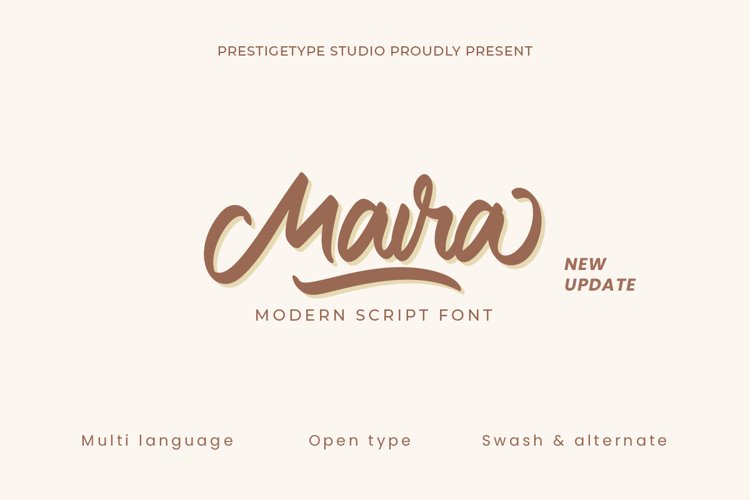
Maira
Beauty can change the perspective of the target audiences. Choose the right typeface to represent the beauty of your brand. We are introducing Maira, is a beautiful and versatile script font with a careful touch on every single curve. Maira font has a beautiful and neat form so it can be easily read. Maira has a ton of alternate characters and bonus swash, making this font perfect for your branding project. It is suitable for use as a logo, Title, business cards, T-shirts, posters, printed quotes, wedding invitations, or any advertising purposes.
Maira includes:
• numbers and punctuation
• multilingual
• ligatures
• alternates
• swash
• opentype feature